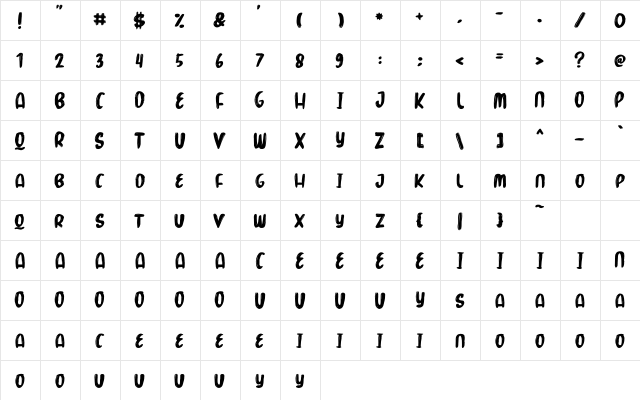
Marker Brush Regular Font Preview
Marker Brush Regular
Marker Brush Regular Font Details
| Foundry | Nirmana Visual |
| Designer | Sigit Dwipa |
Design Context for Marker Brush Typeface
Marker Brush flows with the natural rhythm of handwritten lettering, making it ideal for designs that call for warmth and personal expression.